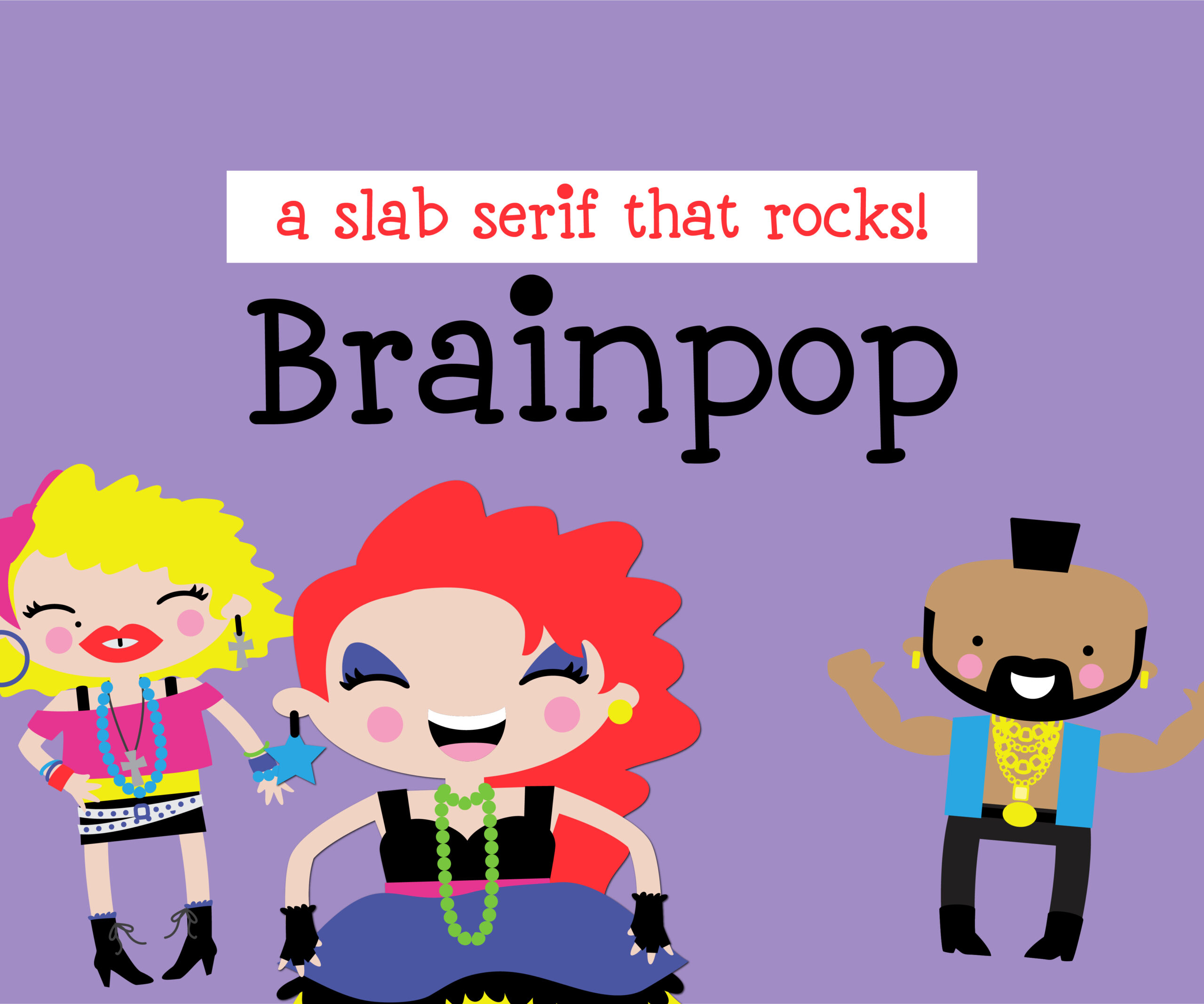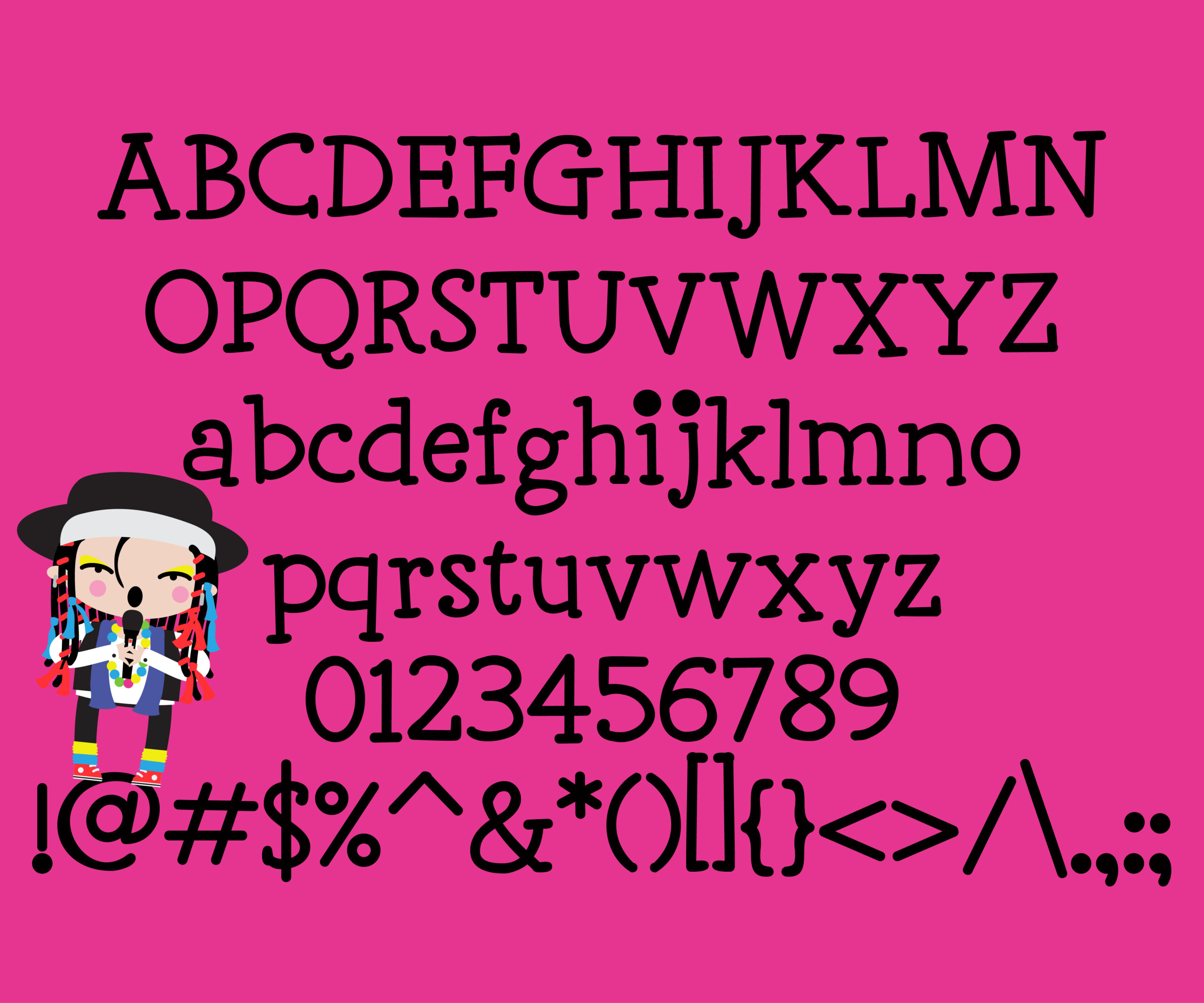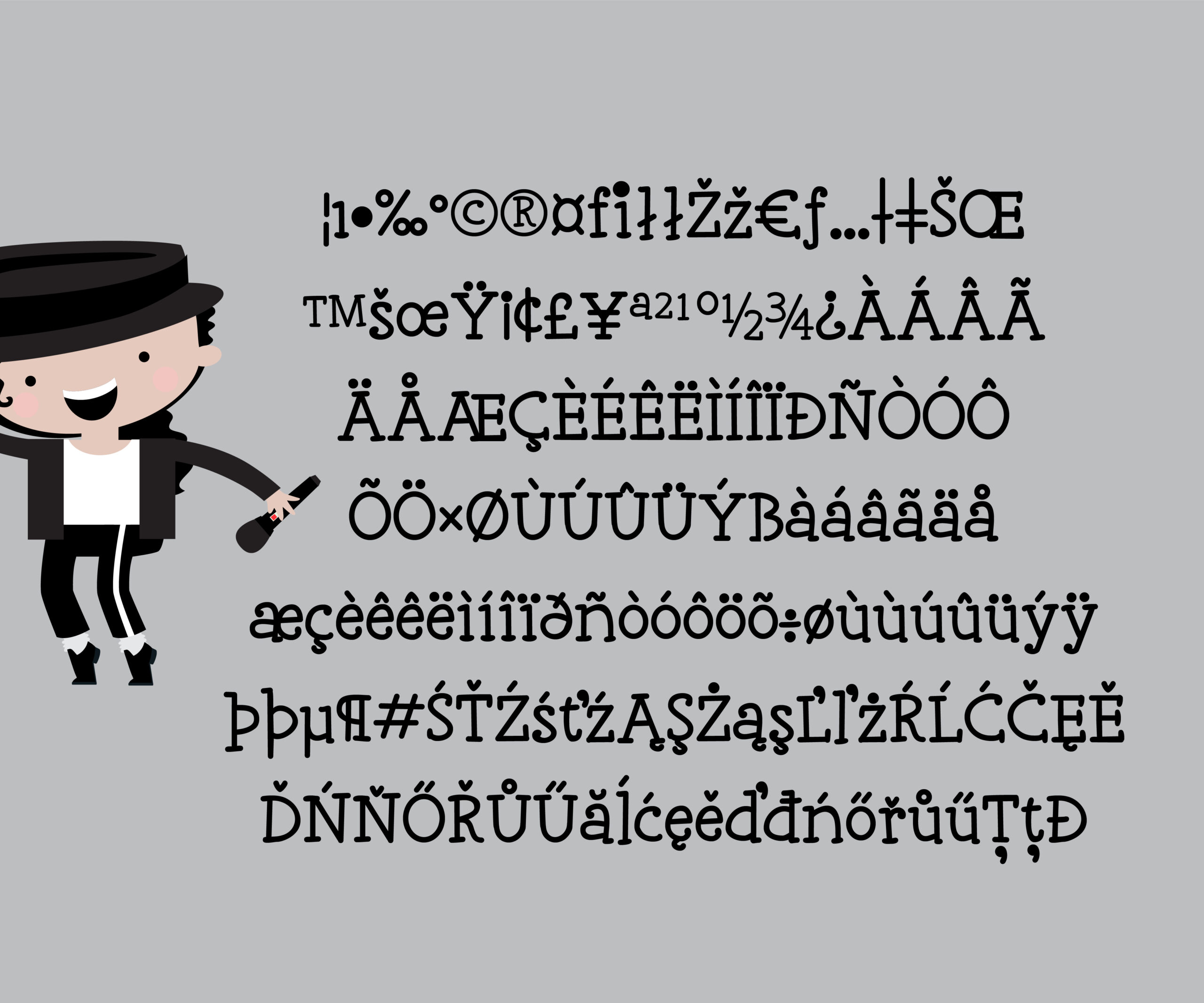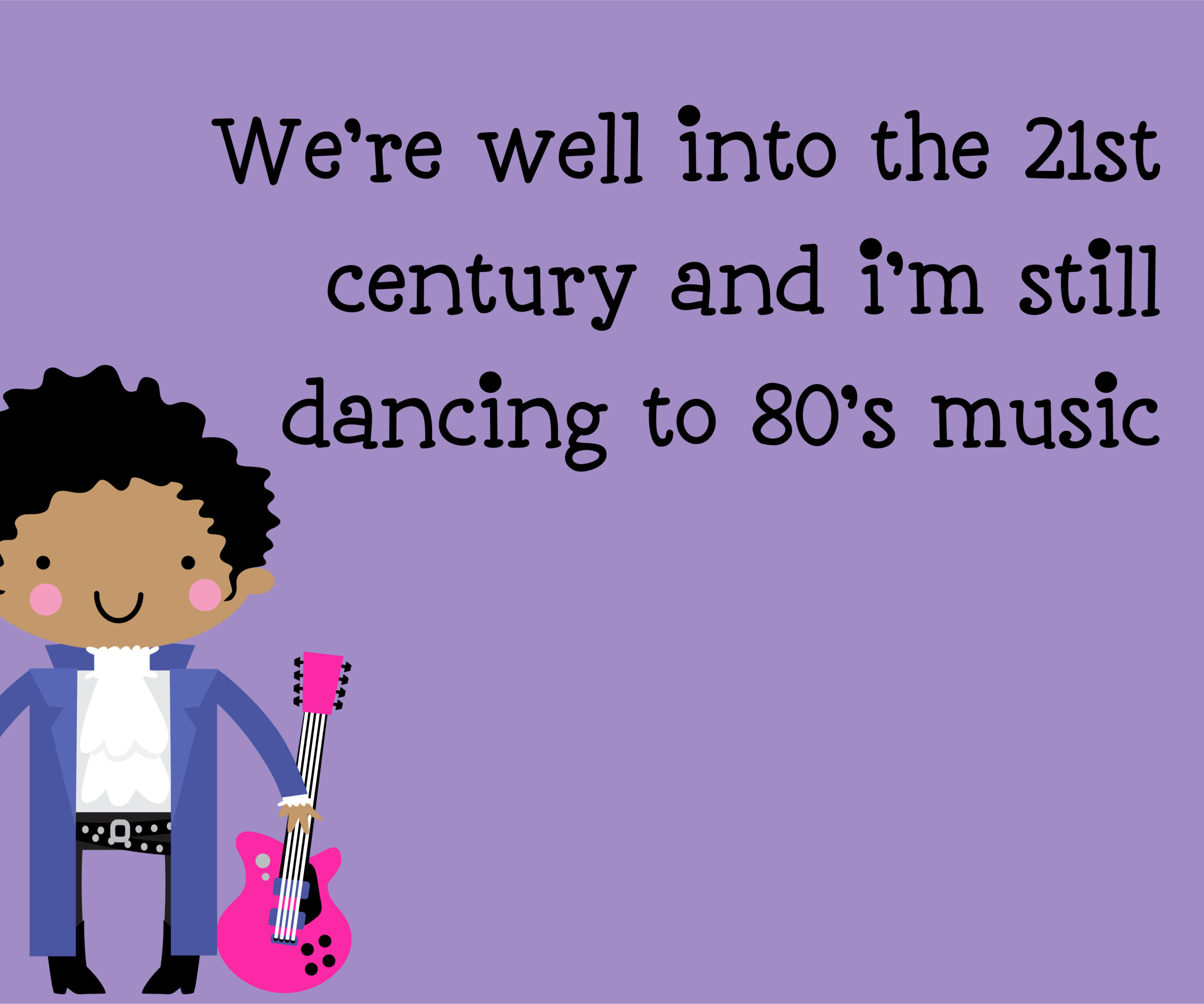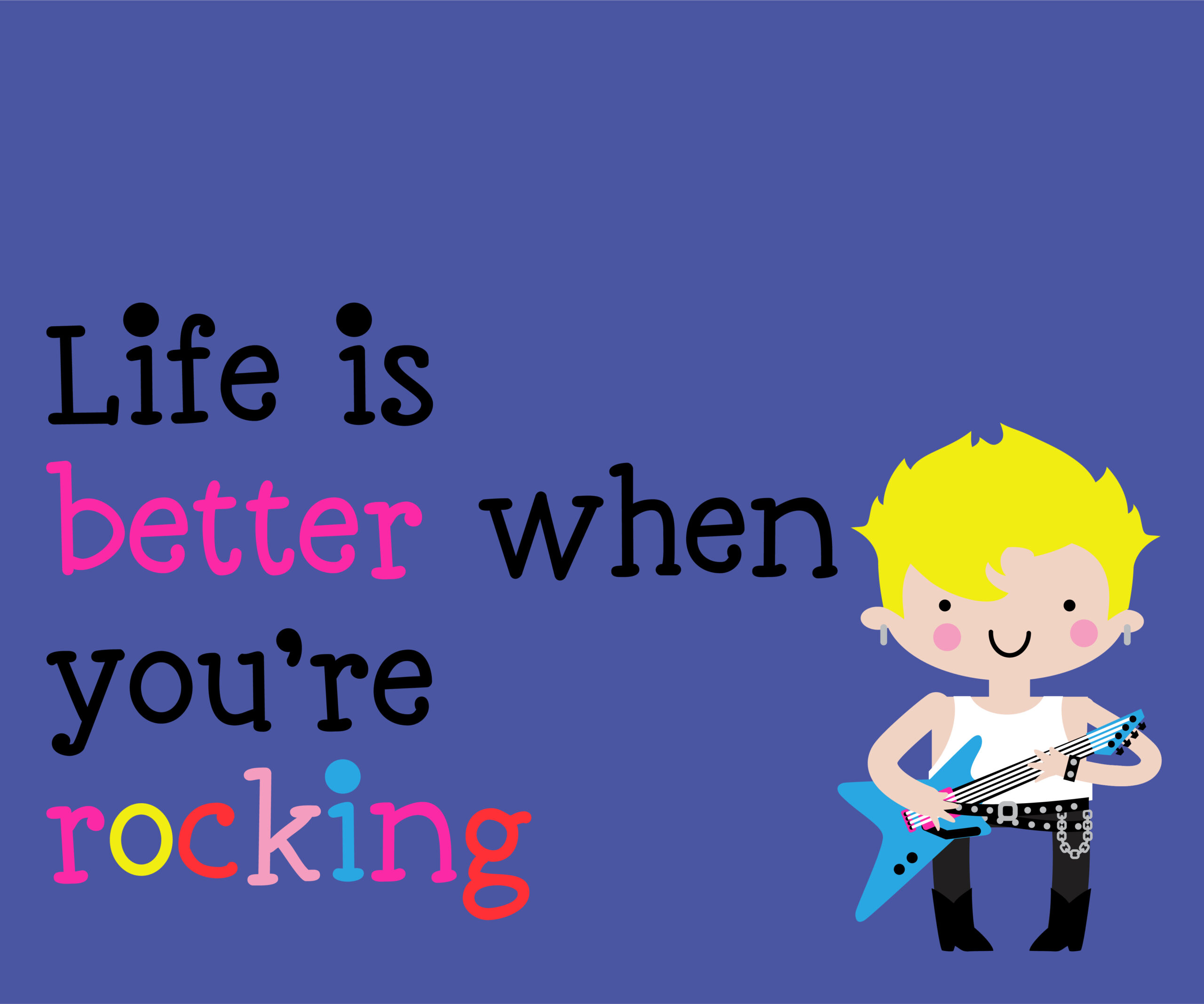
Brainpop Font
About Brainpop Font
Brainpop is a fun slab serif font that has a hand-crafted whimsiness to it. Use this font for a wide range of design styles!